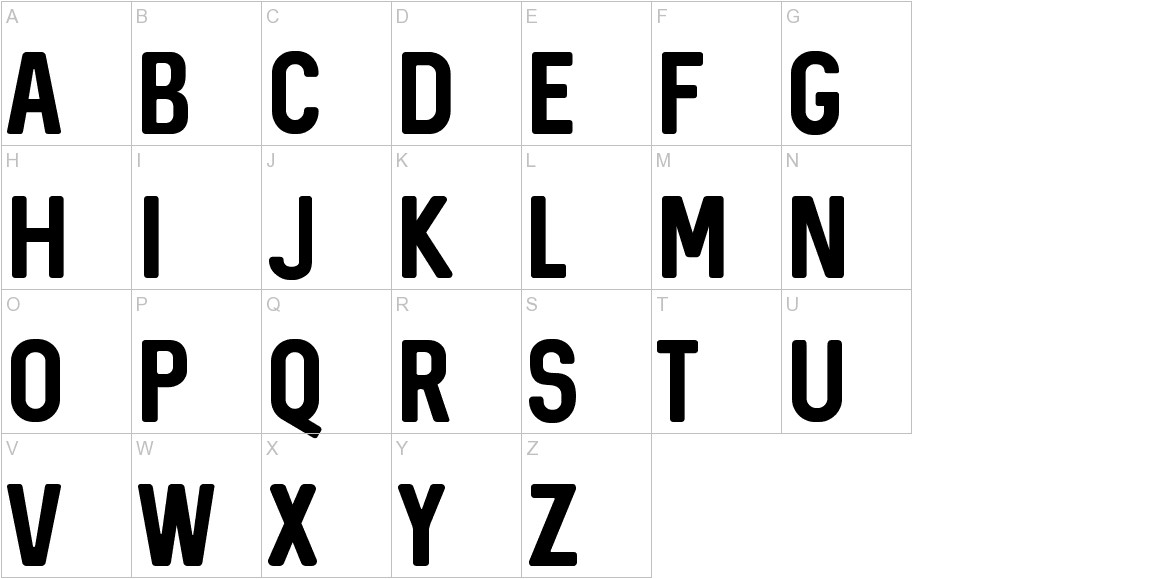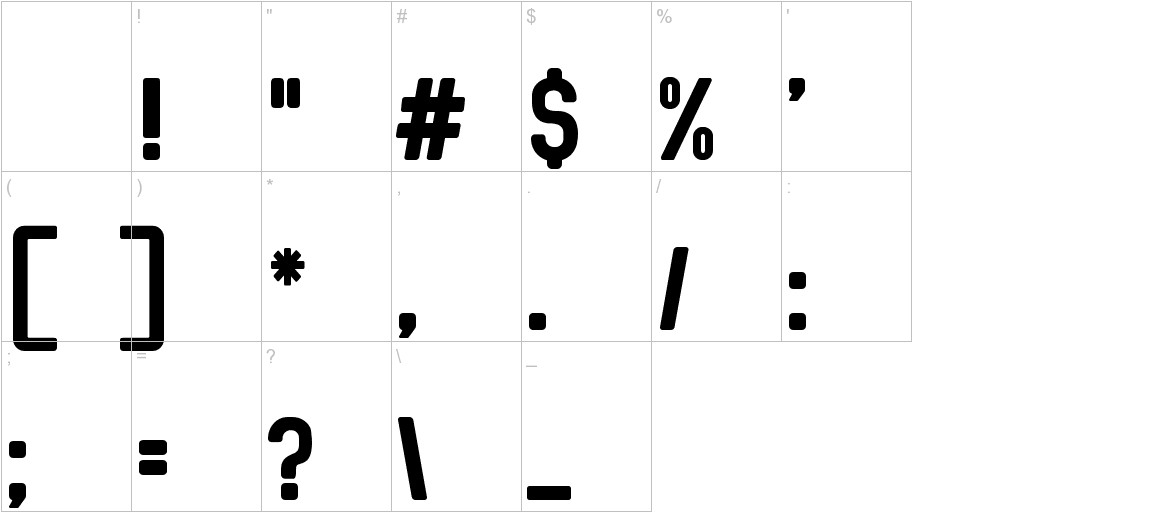
Sequel
With "Sequel" I wanted to design a multifunctional Typeface. I created Ligatures for "The" and "of", so you just need to type 'the' or 'of" and it automatically converts it to my ligatures.